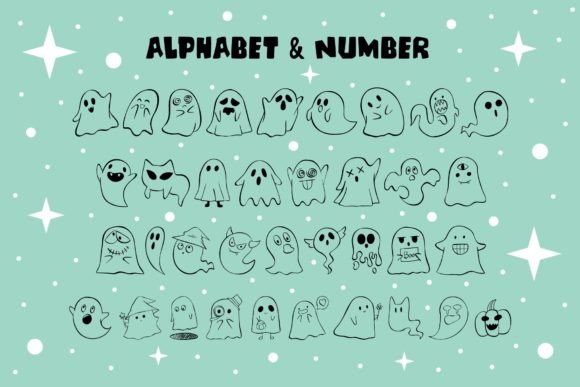
Introducing Funny Ghost: The Ultimate Dingbats Font for Creatives
Are you a designer, crafter, or artist looking for a unique and playful font to add some personality to your projects? Look no further than Funny Ghost, a hilarious dingbats font that’s perfect for a wide range of creative applications. In this article, we’ll dive into the features and benefits of Funny Ghost, and explore how this font can bring a touch of humor and whimsy to your designs.
What is Funny Ghost?
Funny Ghost is a dingbats font that features a collection of adorable and goofy ghost characters. This font is designed to add a touch of humor and playfulness to your designs, making it perfect for projects that require a lighthearted and fun approach. With its unique and quirky characters, Funny Ghost is sure to stand out from the crowd and leave a lasting impression on your audience.
What Can I Use Funny Ghost For?
The possibilities are endless with Funny Ghost! This versatile font can be used for a wide range of creative projects, including:
- Logos: Add a touch of personality to your brand with a custom logo featuring Funny Ghost.
- Wall Art: Create eye-catching wall art, posters, and prints that showcase your creativity and sense of humor.
- Signs: Use Funny Ghost to create attention-grabbing signs for events, businesses, or personal projects.
- Cards: Add a playful touch to your greeting cards, invitations, and other paper crafts.
- Art Prints: Create unique and humorous art prints that are perfect for home decor or as a gift.
- T-Shirts: Design fun and quirky t-shirts that are sure to turn heads.
- Coloring Pages: Create engaging and entertaining coloring pages for kids and adults alike.
Why Choose Funny Ghost?
So why choose Funny Ghost over other fonts? Here are just a few reasons why this font stands out:
- Unique and Playful: Funny Ghost features a one-of-a-kind collection of ghost characters that are sure to bring a smile to your audience’s face.
- Versatile: This font can be used for a wide range of creative projects, from logos and wall art to signs and cards.
- Easy to Use: Funny Ghost is a dingbats font, making it easy to use and incorporate into your designs.
- High-Quality: This font is designed with high-quality and clarity in mind, ensuring that your designs look professional and polished.
Tips and Tricks for Using Funny Ghost
Here are a few tips and tricks for getting the most out of Funny Ghost:
- Experiment with Different Sizes: Try using Funny Ghost in different sizes to create visual interest and hierarchy in your designs.
- Combine with Other Fonts: Pair Funny Ghost with other fonts to create a unique and eye-catching combination.
- Use in Digital and Print Projects: Funny Ghost can be used for both digital and print projects, making it a versatile addition to your font library.